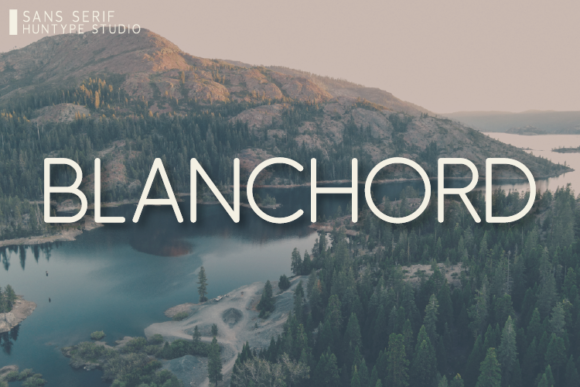
The Designer’s Delight: Blanchord Font
I’ll never forget the time I was working on a project for a client who wanted a modern, minimalist look. I had spent hours scouring the internet for the perfect font, but nothing seemed quite right. That was until I stumbled upon Blanchord Font. It was like a breath of fresh air – clean, simple, and yet, incredibly versatile. In this article, I’ll share my experience with Blanchord Font, its features, and how to make the most of it in your designs.
What I Love About Blanchord Font
- ✨ Clean and Minimalist Design: Blanchord Font is a beautifully crafted sans serif font that exudes simplicity and elegance.
- ✅ Highly Versatile: Its neutral design makes it perfect for a wide range of projects, from branding and advertising to packaging and digital media.
- 💡 Excellent Legibility: The font’s clear and concise letterforms ensure that your text is easy to read, even at small sizes.
While Blanchord Font is an excellent choice for many projects, there are a few things to keep in mind:
- 🤔 Limited Character Set: As a minimalist font, Blanchord has a relatively limited character set, which may not be suitable for projects that require a wide range of special characters or glyphs.
- ⚠️ Not Ideal for Body Text: While Blanchord is great for headlines and titles, it may not be the best choice for body text, as it can appear too light or airy for longer passages.
The Story Behind Blanchord Font
Blanchord Font was designed with the goal of creating a clean and versatile sans serif font that could be used in a wide range of projects. While the designer’s inspiration is not well-documented, it’s clear that Blanchord Font was crafted with attention to detail and a passion for minimalist design.
Q: What type of projects is Blanchord Font best suited for?
A: Blanchord Font is highly versatile and can be used in a wide range of projects, including branding, advertising, packaging, and digital media.
Q: Can I use Blanchord Font for body text?
A: While Blanchord Font is great for headlines and titles, it may not be the best choice for body text, as it can appear too light or airy for longer passages.
Q: Is Blanchord Font suitable for digital media?
A: Yes, Blanchord Font is highly legible and can be used in digital media, including websites, mobile apps, and social media graphics.